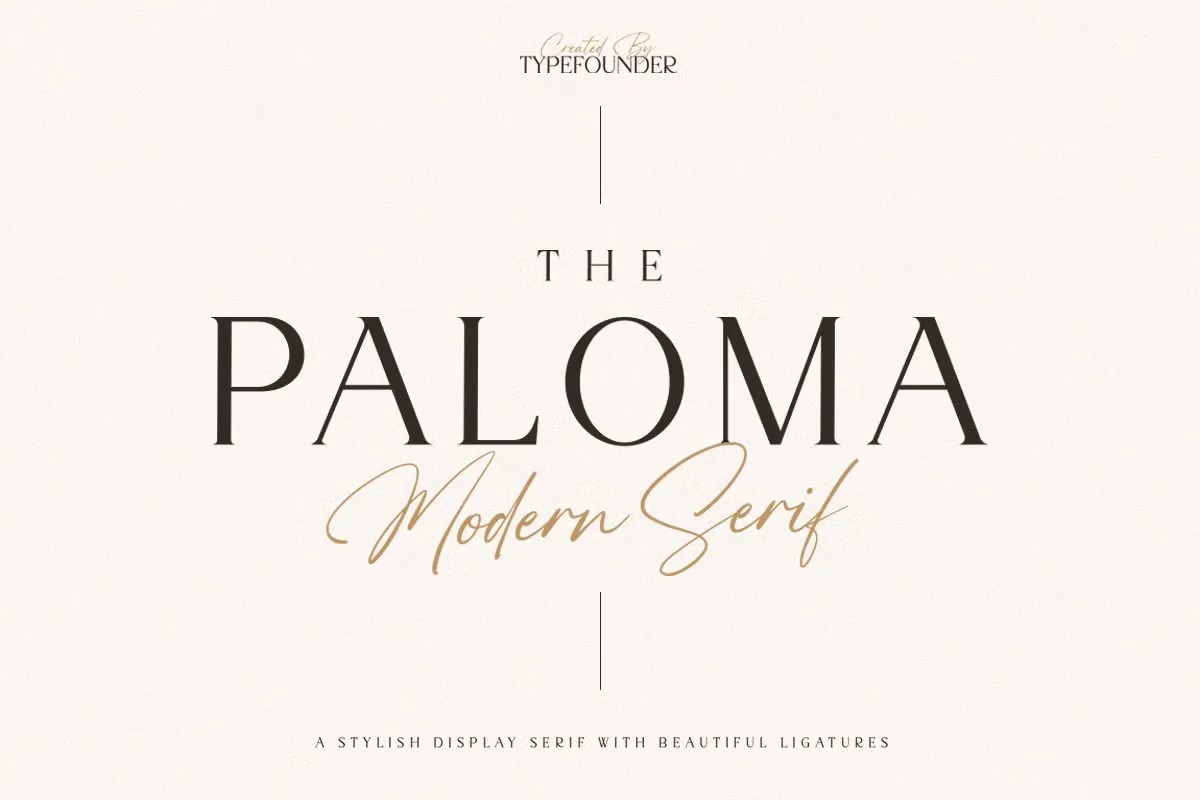
The Paloma is a free modern serif font blends vintage and retro vibes with a chic, classy aesthetic. Perfect for logos, branding, fashion magazines, and skincare or cosmetics packaging, this font adds a touch of elegance and playfulness to your designs. Its bold, expressive characters make it ideal for headlines and stylish display text. With a range of stylish alternates, The Paloma is versatile for formal and casual projects, offering a fresh, trendy look perfect for websites, newspapers, Instagram, Canva, and more. Whether you’re creating for the 70s or 80s retro scene or looking to keep things modern and cool, The Paloma is the ideal choice for a fun and expressive design!
The Paloma Free Modern Serif Font